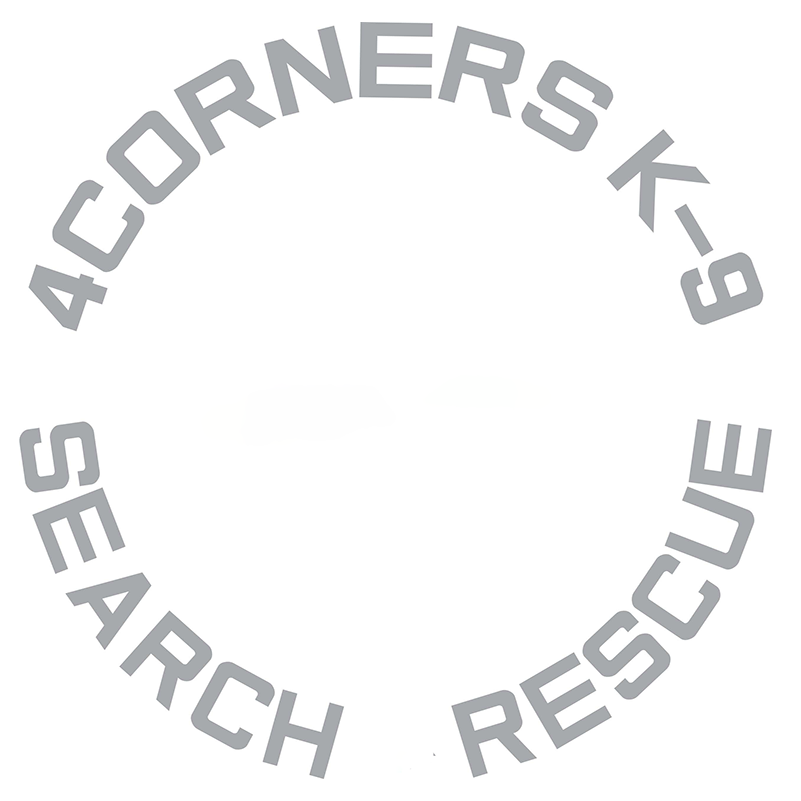
Need to find this font and so far, I am striking out.
This is very similar to Bank Gothic, but there are a few differences. The terminals of the C and S are square in this example but are slanted in Bank Gothic. The numeral 9 is different. I didn’t check Google Fonts or Adobe Fonts. FWIW, they use this font on their logo but they use Bank Gothic on their website.